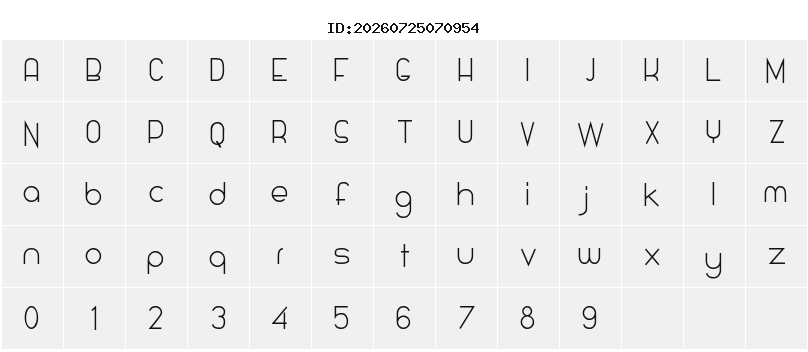
Glamourousse Preview
• Font Name: Glamourousse
• Full Font Name: Glamourousse
• Version: Version 1.00 June 25, 2011, initial release
About Glamourousse.ttf
Glamourousse.ttf is a modern, elegant sans-serif font designed for ultimate readability and visual harmony. Perfect for branding, headlines, web design, and print materials.